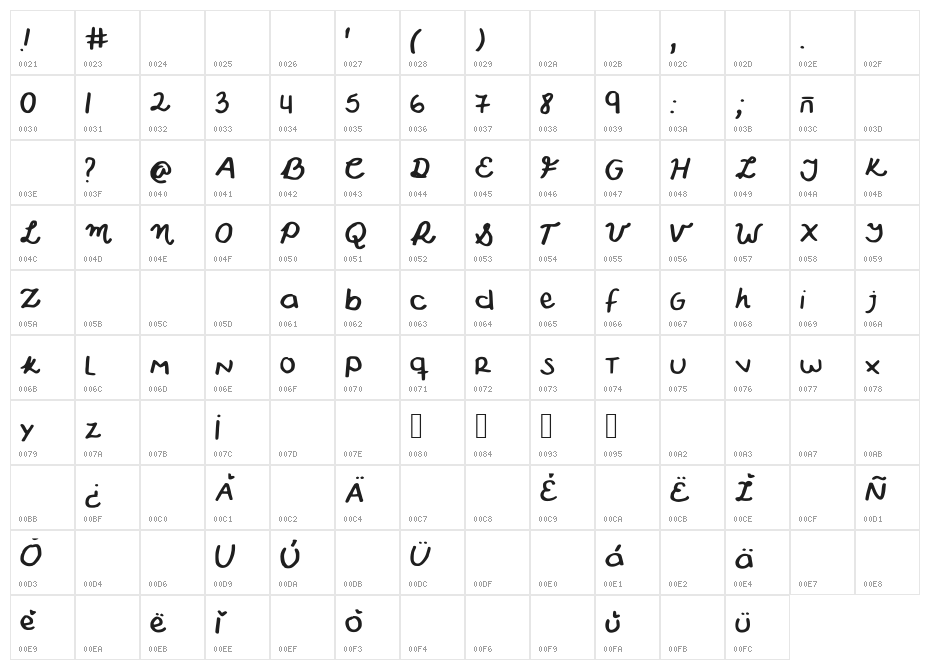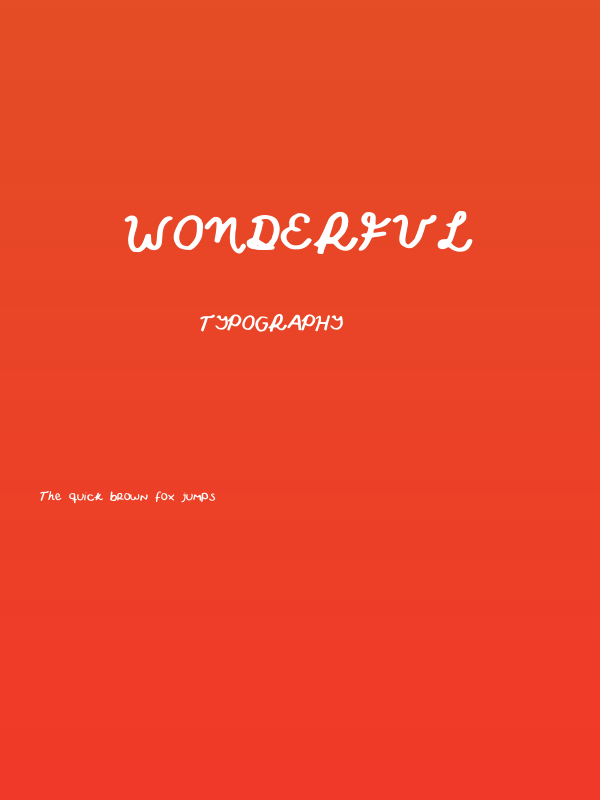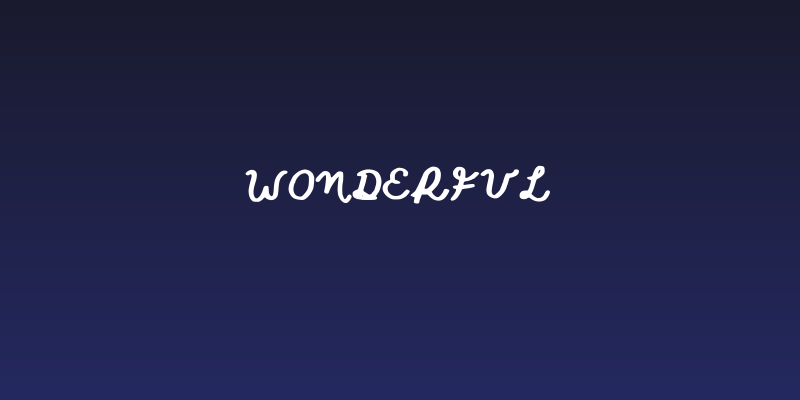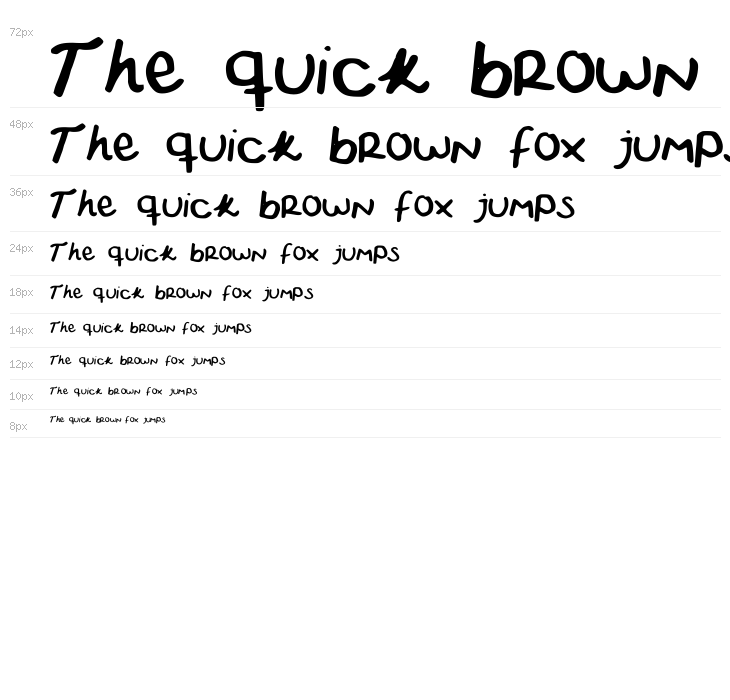
Wonderful Font
Wonderful Description
This font exudes a playful and casual handwritten style, characterized by its smooth, flowing curves and slightly irregular letterforms. The uppercase and lowercase letters maintain a consistent rhythm, with rounded edges and a friendly appearance. The numerals are clear and easy to read, complementing the overall informal aesthetic. Special characters are well-integrated, maintaining the same whimsical style. This font is perfect for projects that require a personal touch, such as greeting cards, invitations, or children's book illustrations.
| Proposed Projects | Ideal for greeting cards, invitations, children's books, and personal branding. |